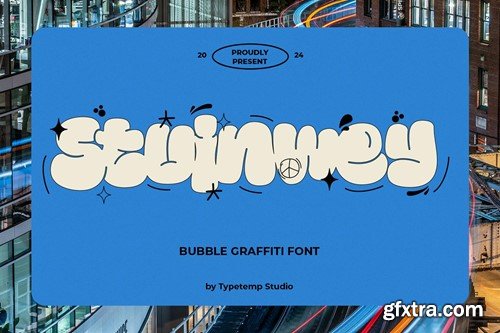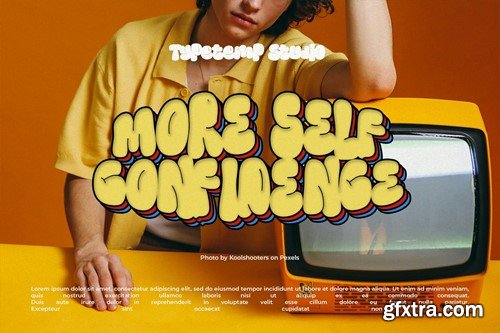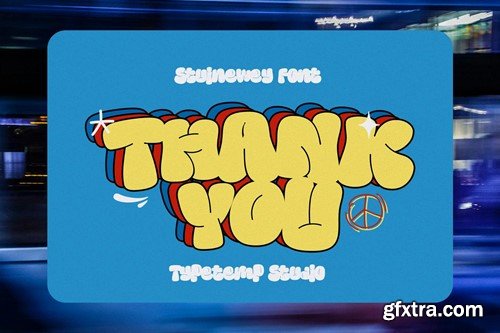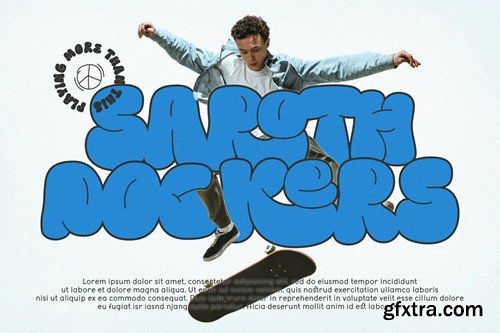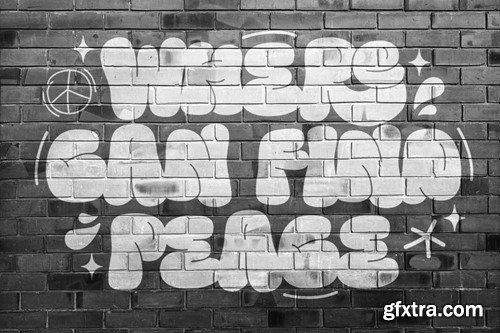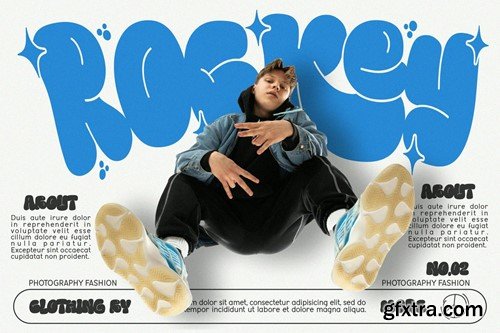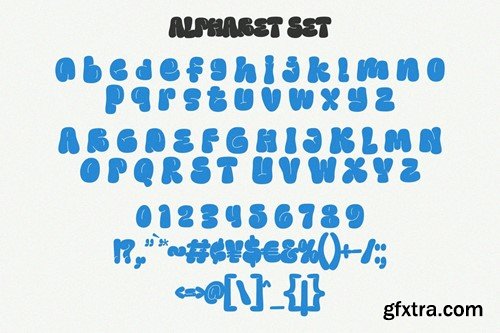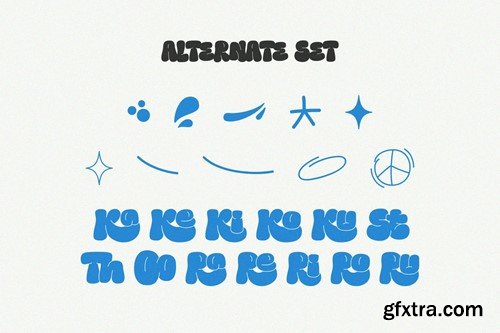
Stuinwey Display Font
Stuinwey - Bubble Graffiti Display a font with Graffity Bubble Style. Comes with alternatives and ligatures, helps to create stunning Posters, Branding, Tshirt, Social Media Graphics and much more. WHAT'S YOU GET ? to use Alternates and Ligatures you need a Program supports OpenType features such as Adobe Illustrator CS, Adobe Photoshop CC, Adobe Indesign and Corel Draw. I really hope you'll get pleasure using Stuinwey font and it will be perfect addition to your font collection! Contact me with an inbox message If you have any question. Thank you! Happy Creating.